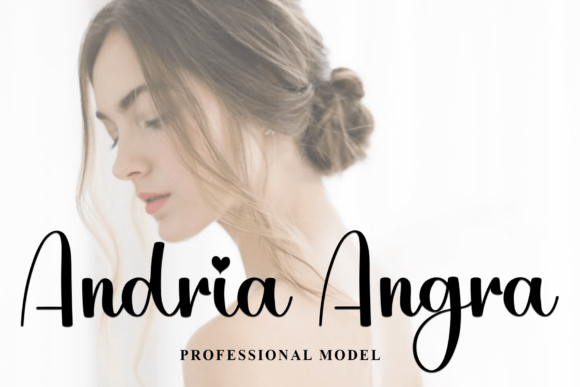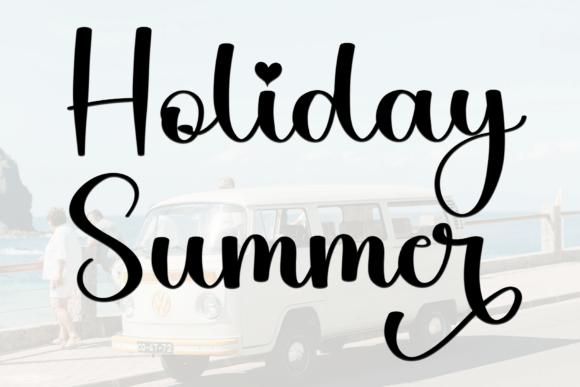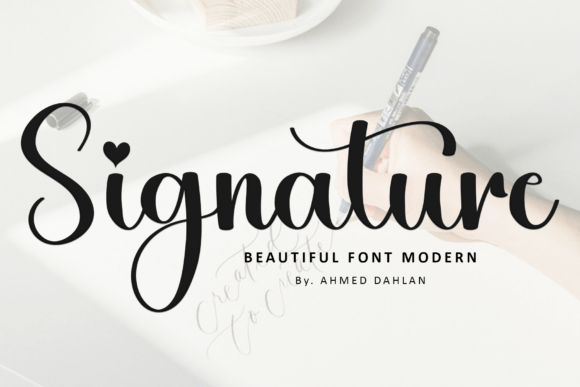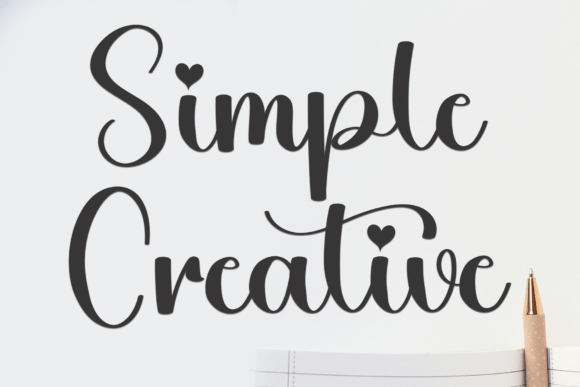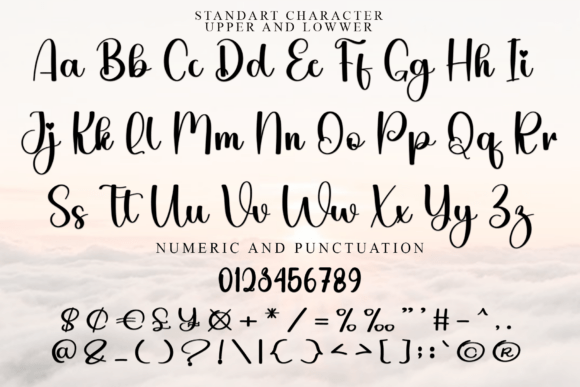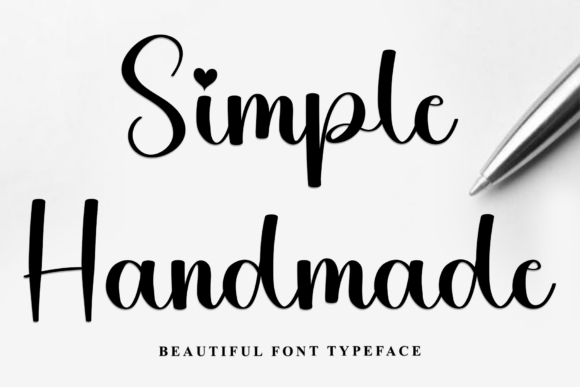
The Perfect Summer Font: How Creative Summer Stole My Heart
I’ll never forget the summer I spent working on a wedding invitation project, searching for the perfect font to capture the carefree, joyful vibe of the season. My client wanted something elegant, yet playful; something that would make their guests feel like they were in for a treat. I tried font after font, but nothing seemed quite right. That was until I stumbled upon Creative Summer, a modern calligraphy-style font that radiates elegance and joy with every stroke.
First Impressions: A Love Letter to Creative Summer
As soon as I opened Creative Summer on my computer, I knew I had found the one. The smooth curves, playful swashes, and charming heart detail all worked together to create a font that felt both sophisticated and whimsical. I was hooked from the very first glance.
- ✨ Smooth, flowing curves that make your designs feel elegant and refined
- ✅ Playful swashes and ligatures that add a touch of whimsy to your work
- 💕 A charming heart detail that adds a romantic touch to your designs
- 🤔 Some of the swashes and ligatures can be a bit finicky to work with, requiring a bit of trial and error to get just right
- ⚠️ The font can be a bit overused, so be sure to balance it with some simpler design elements to avoid overwhelming your design
The Story Behind Creative Summer: A Designer’s Inspiration
According to the designer, Creative Summer was inspired by the carefree, sun-kissed days of summer. With its smooth curves and playful swashes, the font is designed to evoke the feeling of a warm breeze on a summer day. Whether you’re working on a wedding invitation, summer event branding, or simply want to add a touch of elegance to your social media content, Creative Summer is the perfect choice.
Q: Is Creative Summer suitable for body text?
A: While Creative Summer is a beautiful font, it’s best suited for headlines, titles, and short blocks of text. For body text, you may want to choose a simpler, more readable font to ensure your content is easy to read.